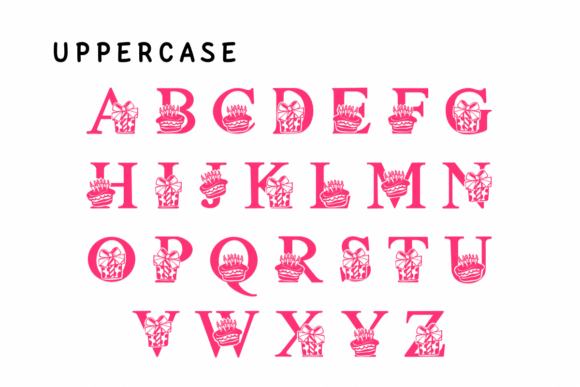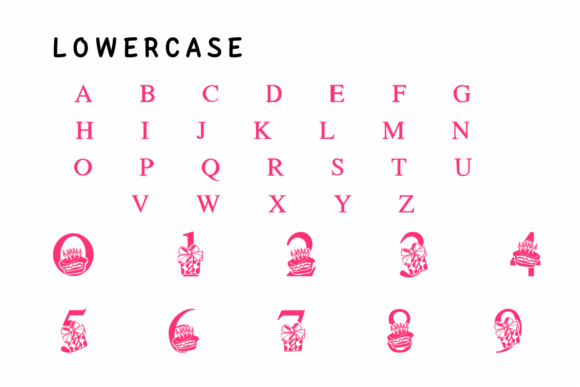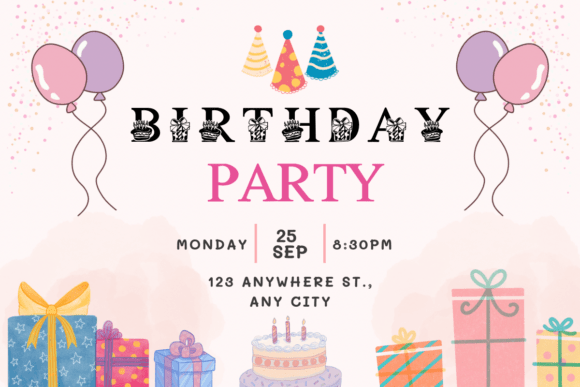
Birthday Cake Font
Birthday cake is a Decorative font. You can use it for taking notes, writing a diary, or making greeting cards. However, you can still use it for other designs, such as banners, content, mugs, cards, shirts, stationery, social media posts, and more!